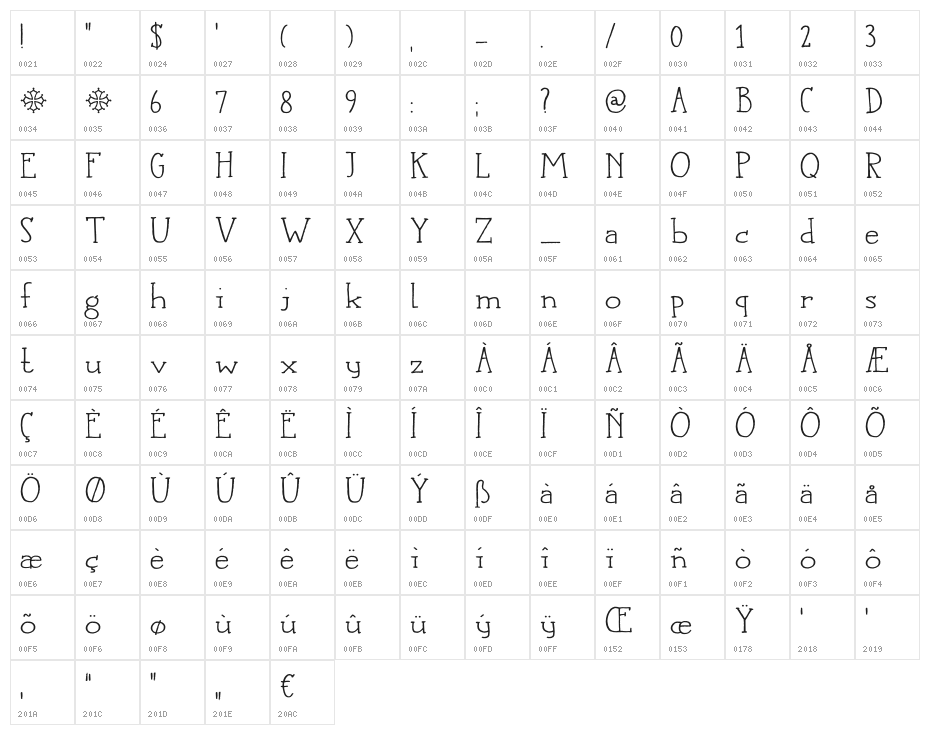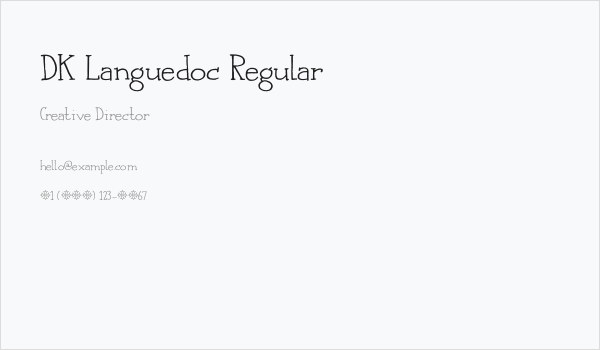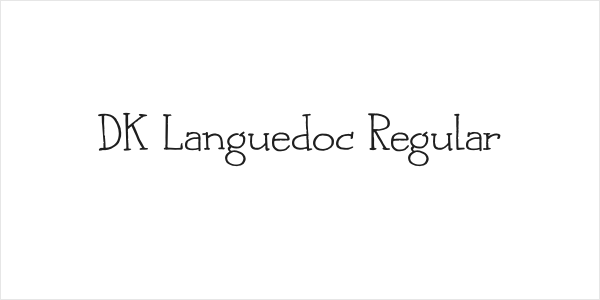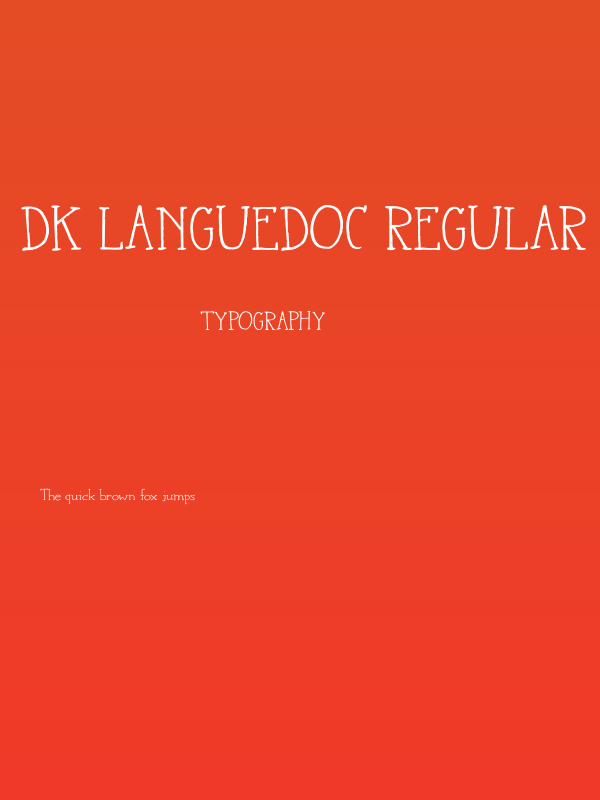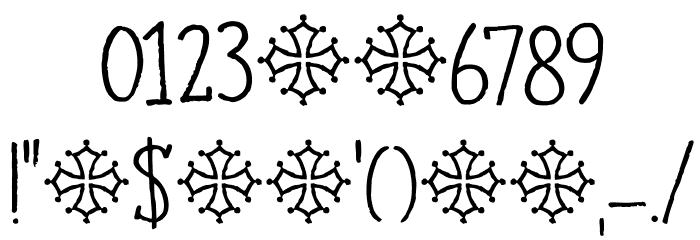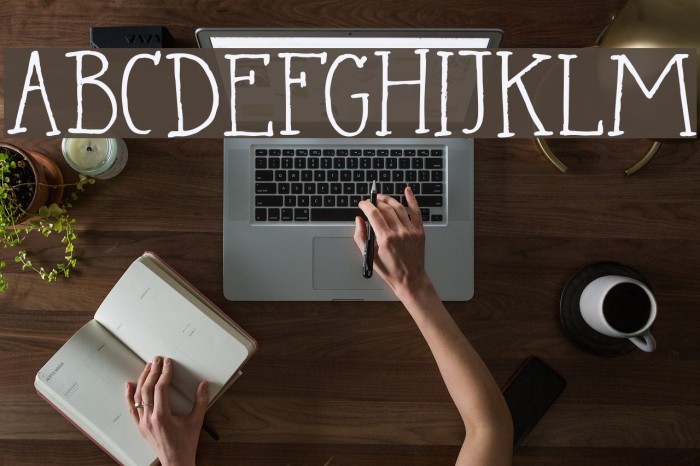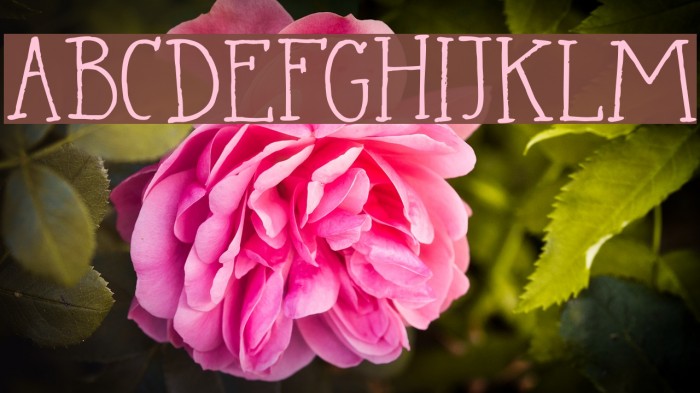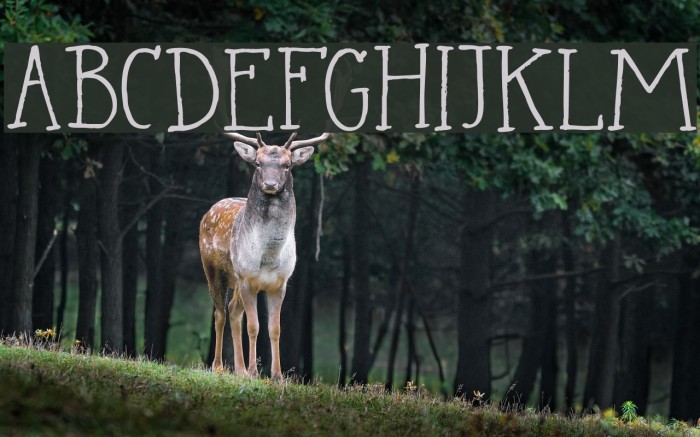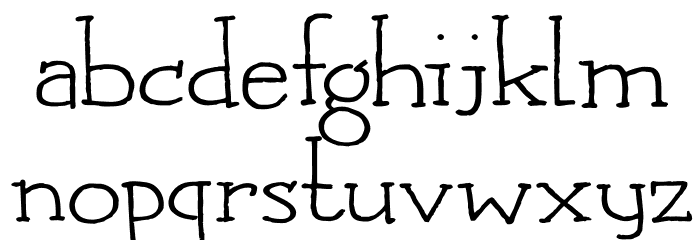
DK Languedoc Regular Font
DK Languedoc Regular Description
This font features a whimsical and hand-drawn style, characterized by its playful and irregular strokes. The uppercase letters are tall and slightly narrow, with a distinct handcrafted appearance. Lowercase letters maintain a consistent style, with rounded edges and a casual feel. The numbers are bold and clear, matching the overall quirky aesthetic. Special characters are uniquely designed, adding to the font's decorative charm. This font is perfect for projects that require a touch of personality and creativity.